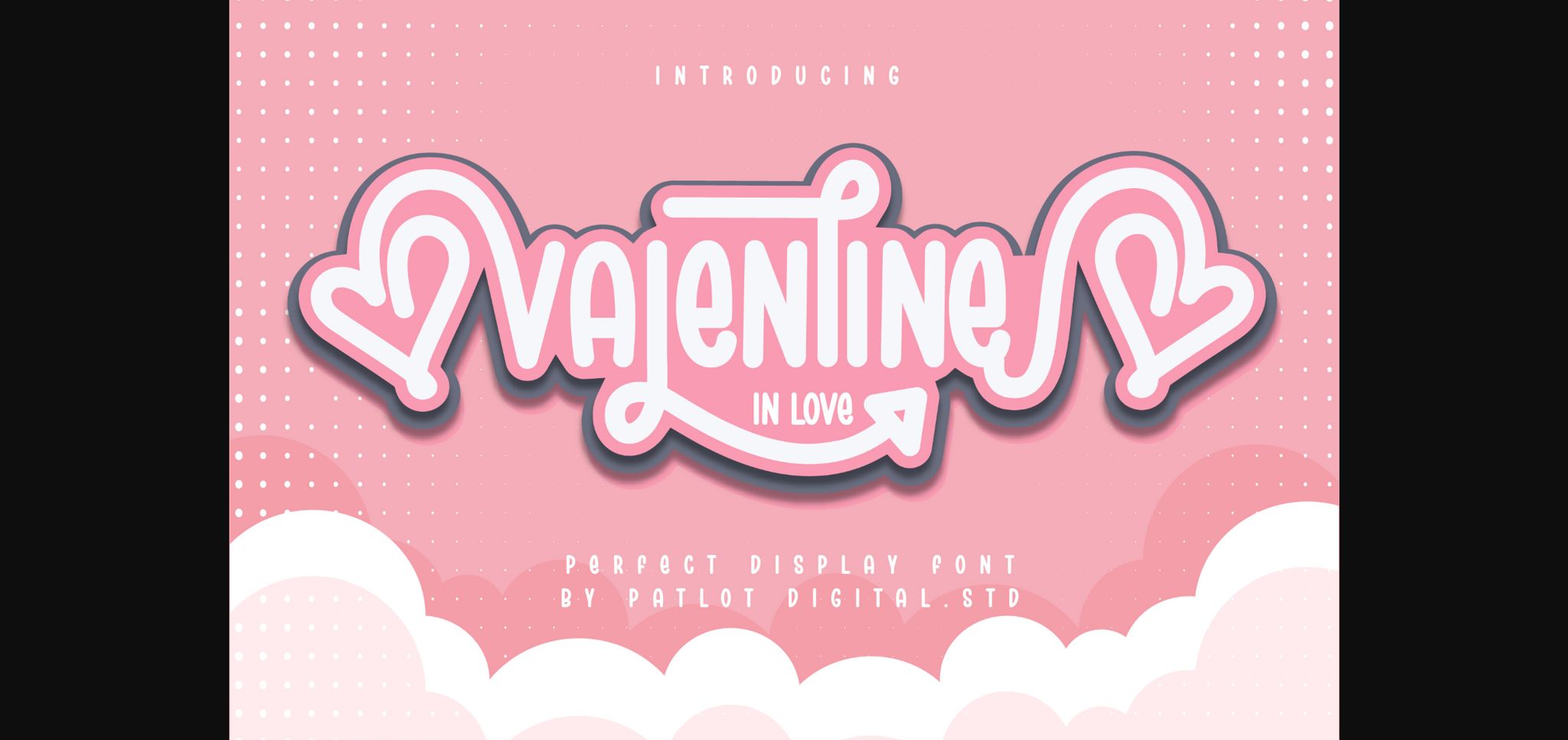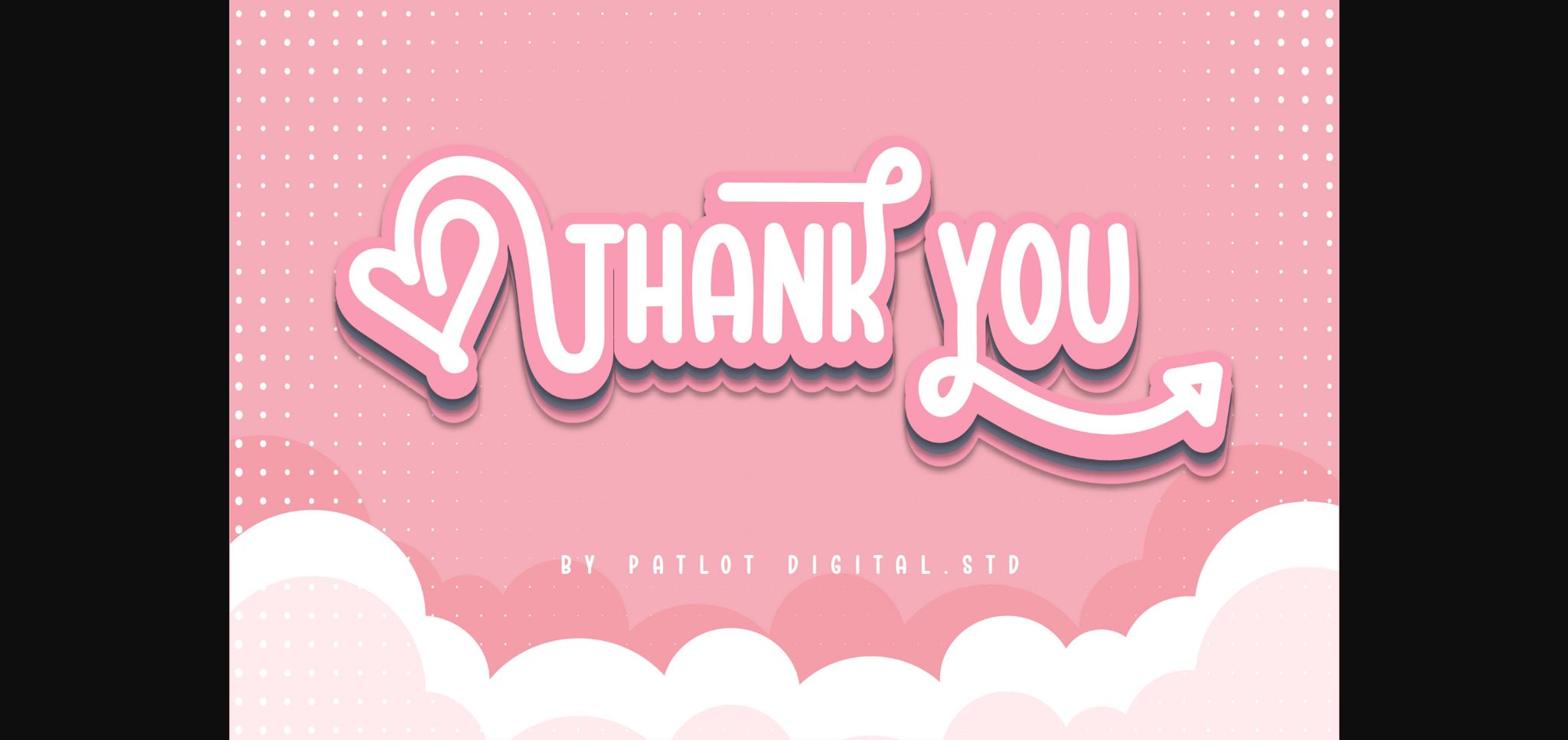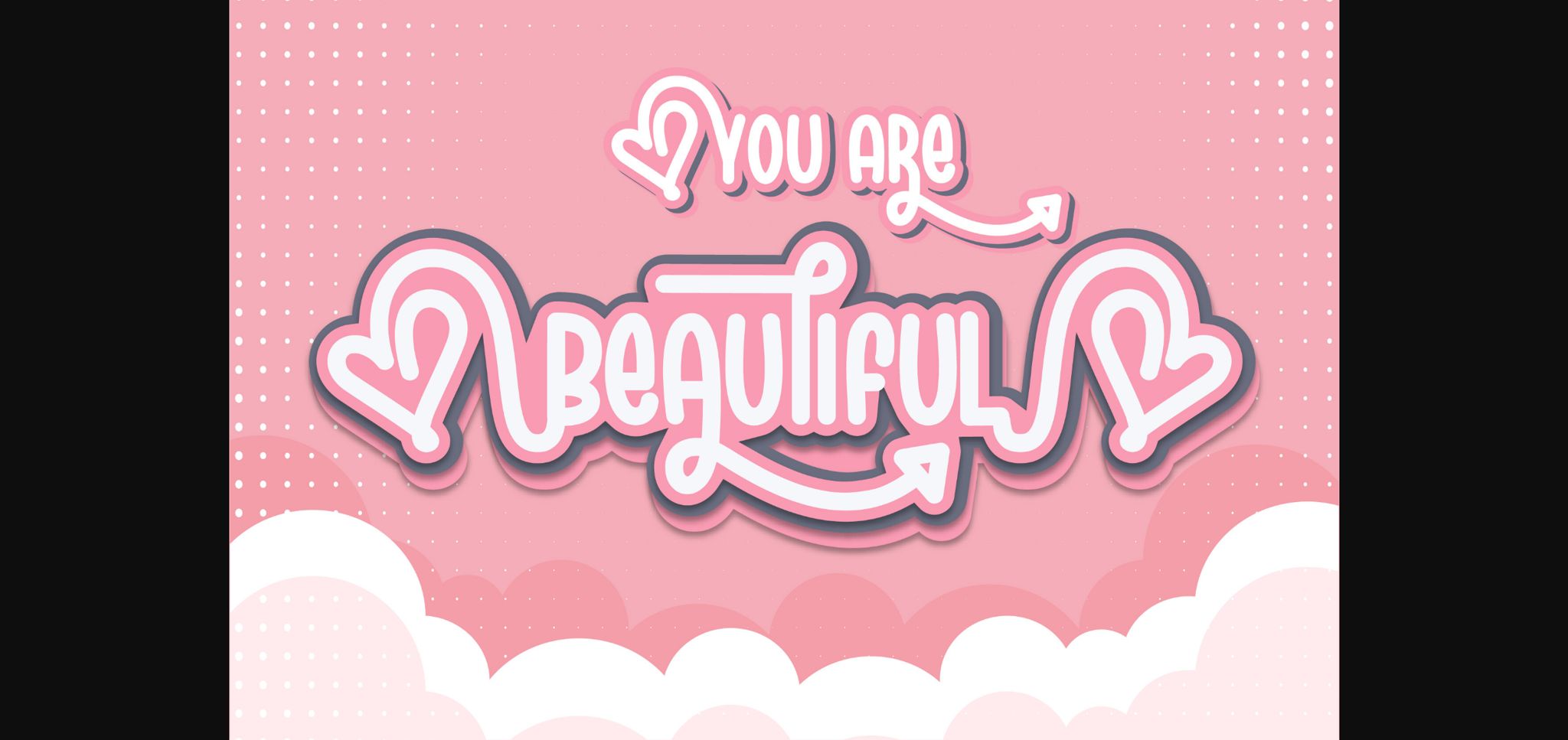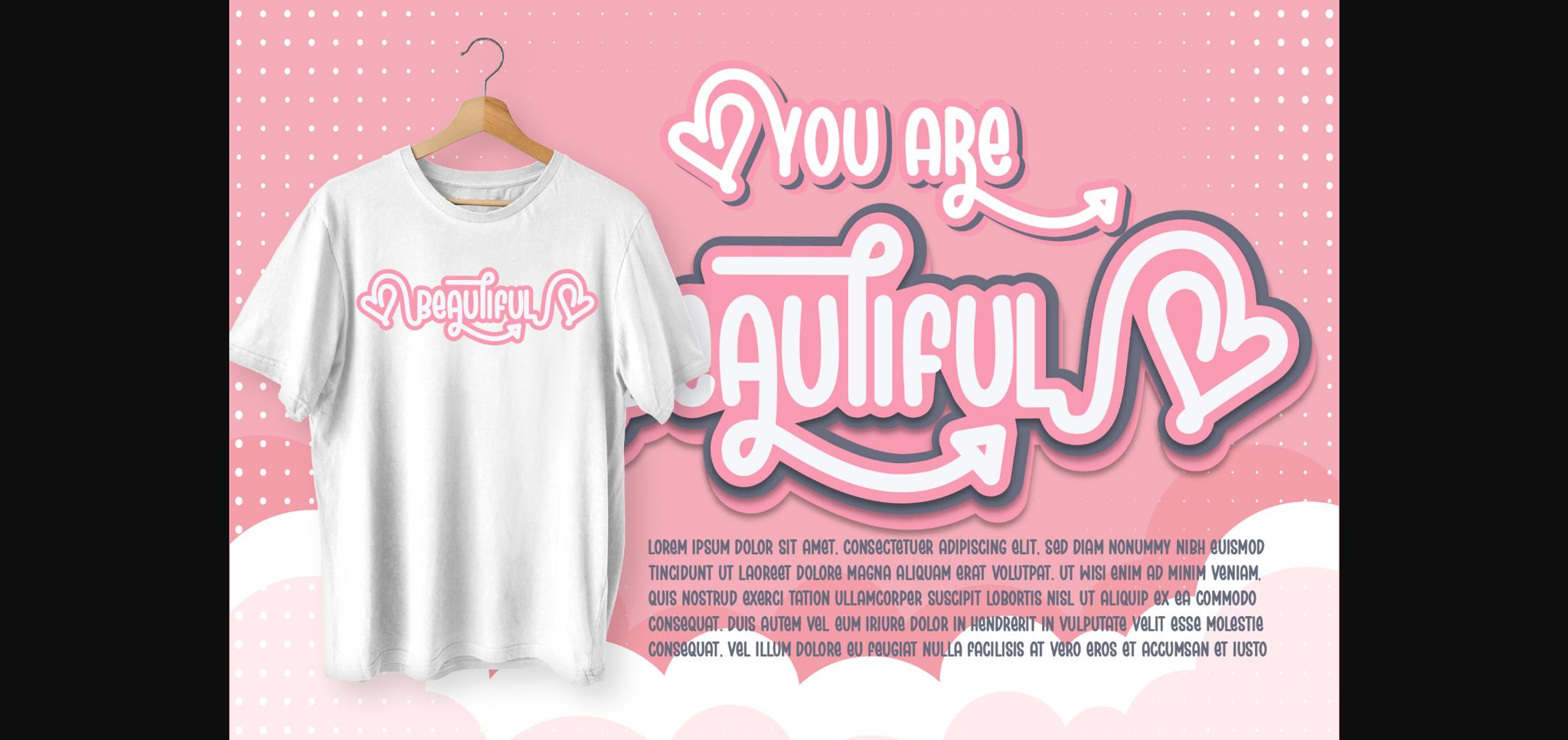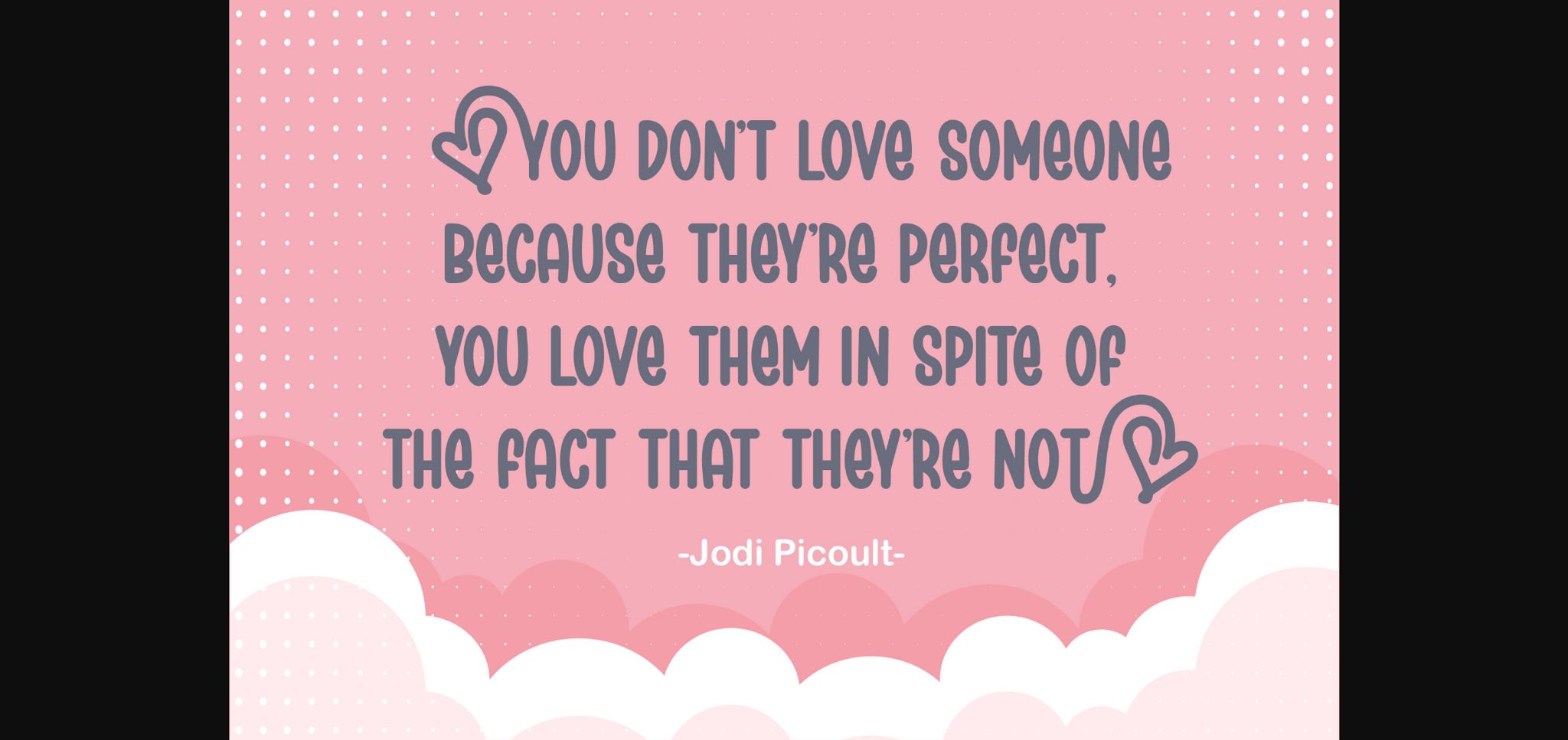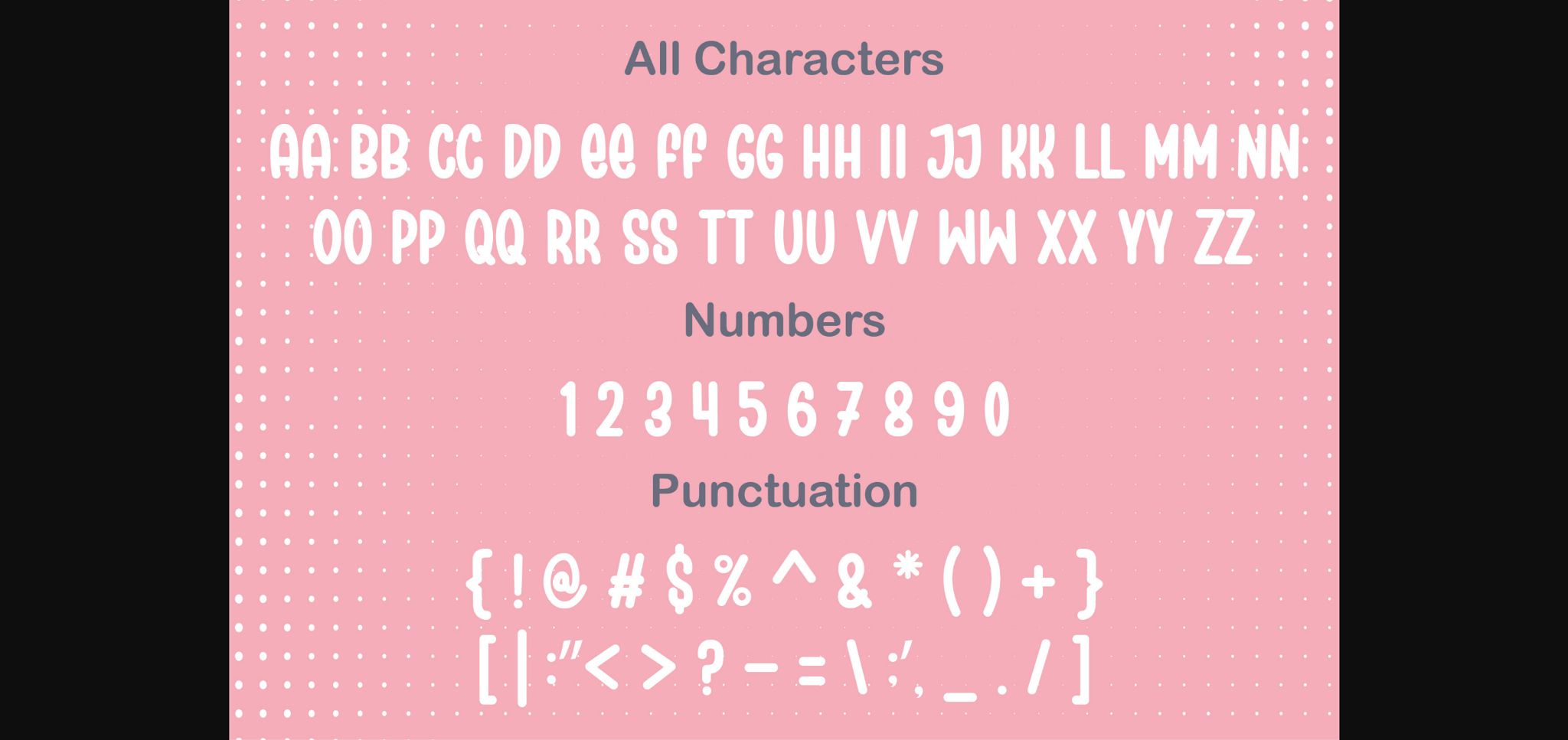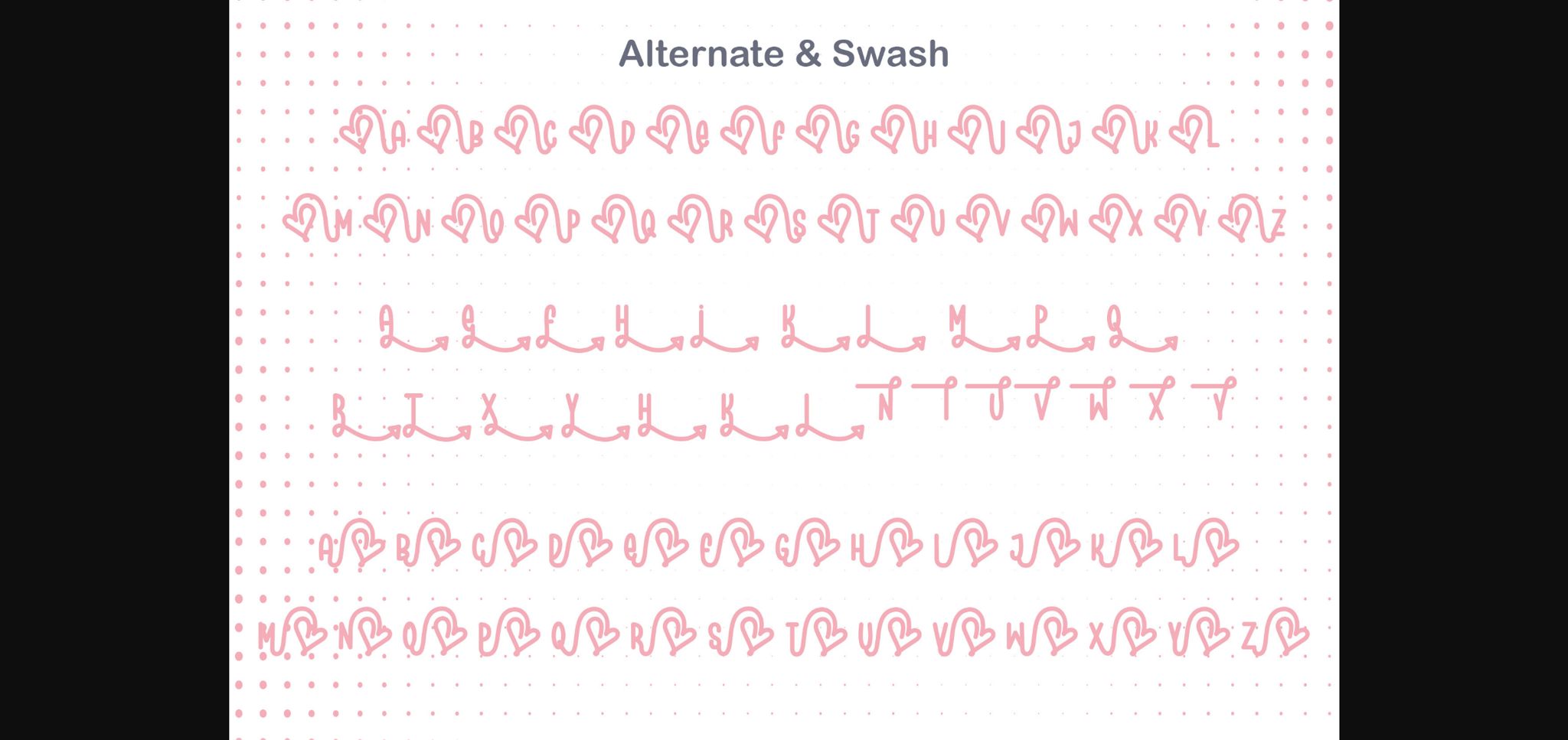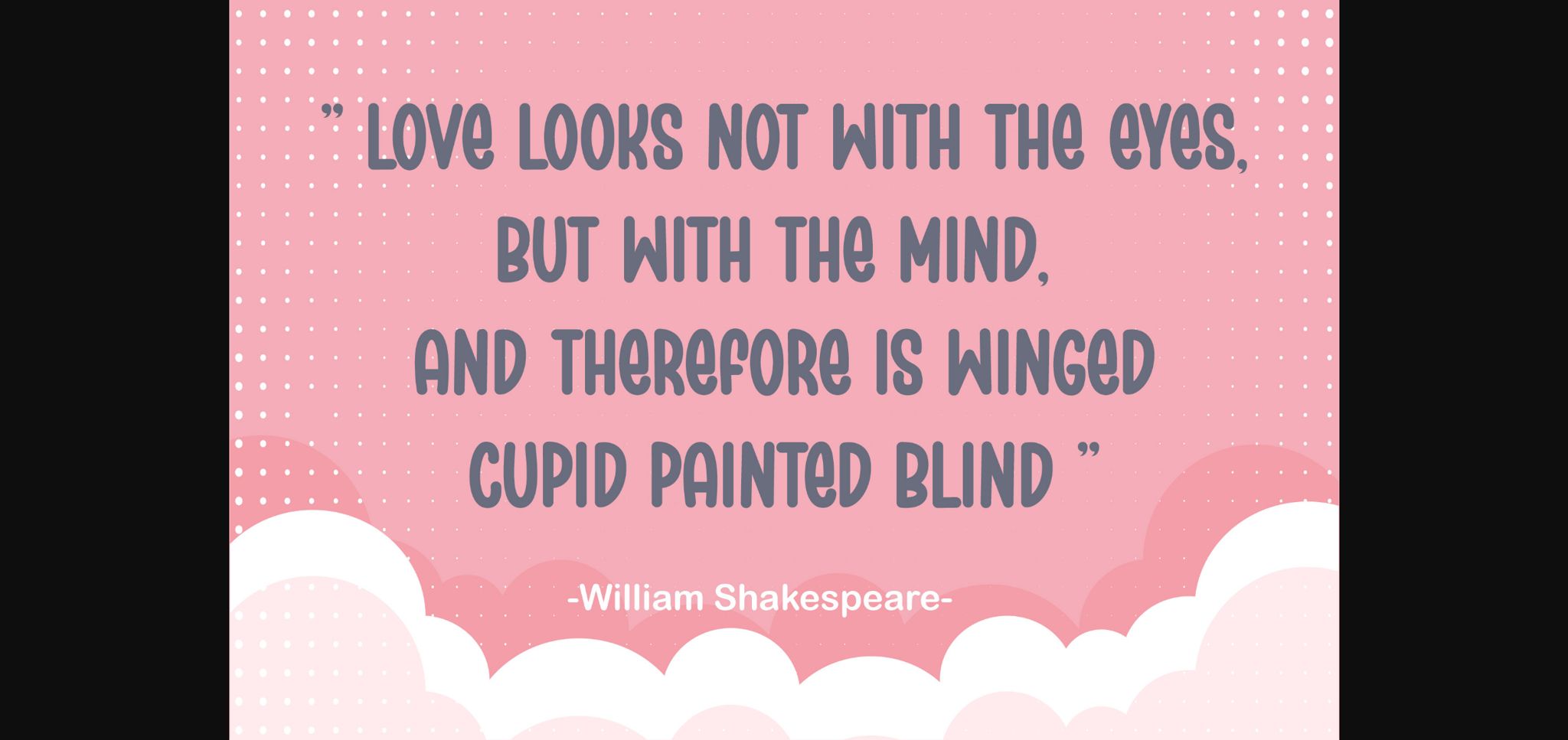
Valentine in Love Font
About Valentine in Love Font
Valentine in Love is a sweet and stylish sans-serif font. Perfect for your Valentine’s theme designs. It will add a joyful and romantic touch to any of your projects!